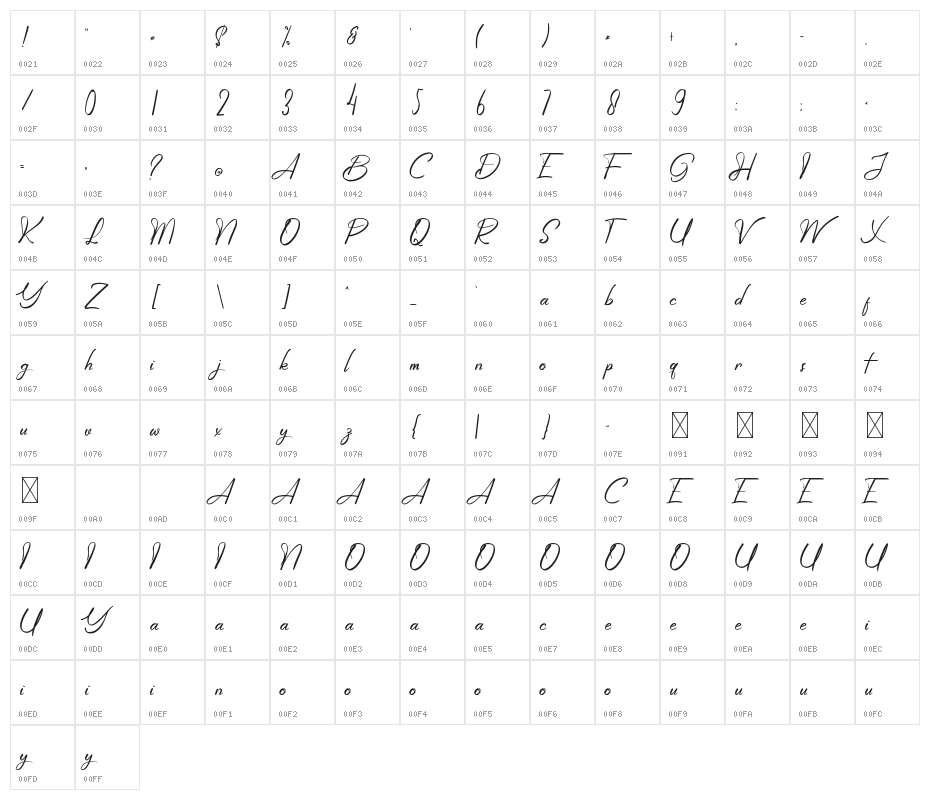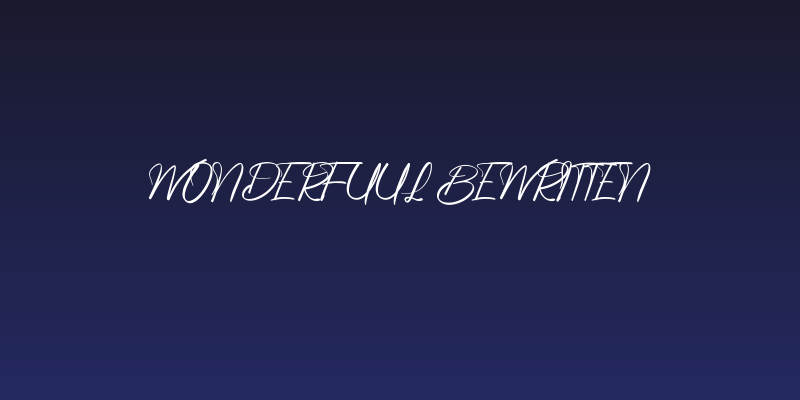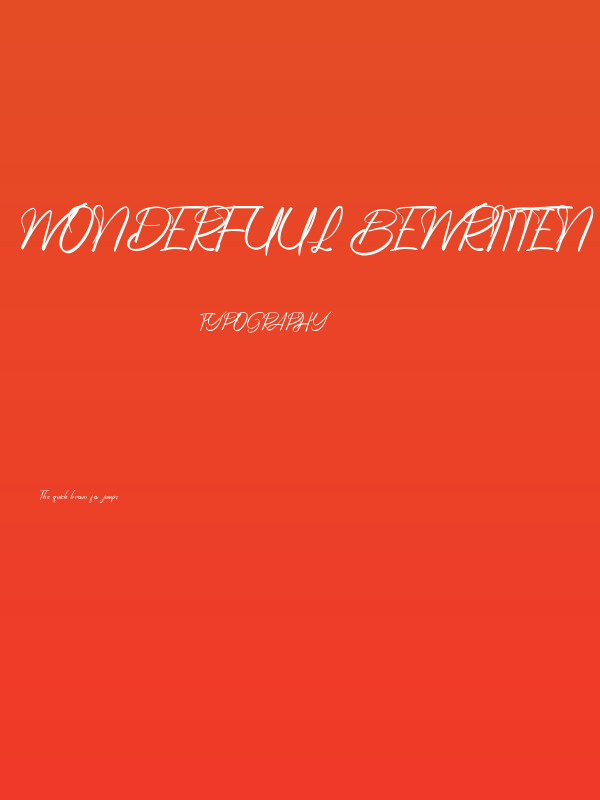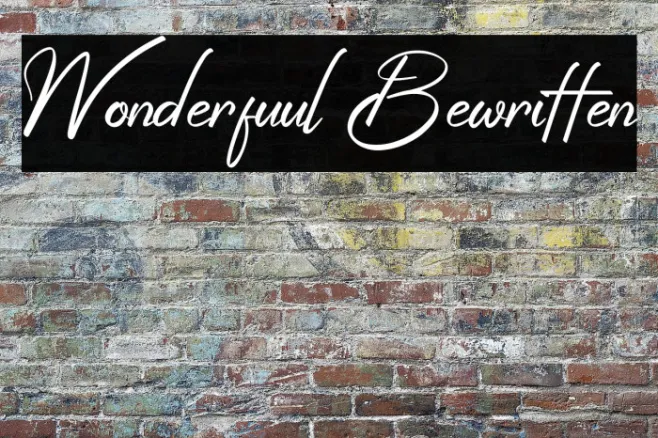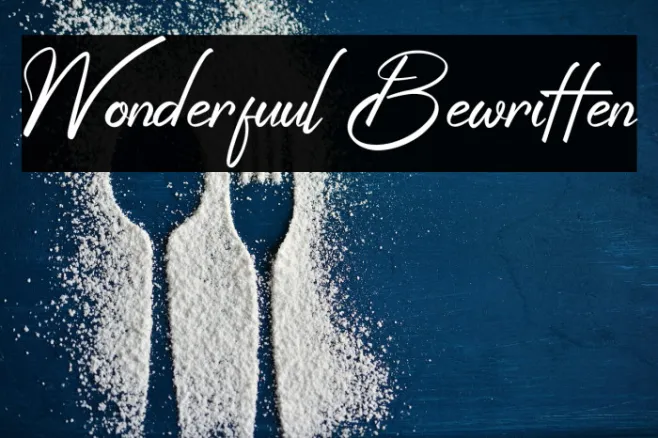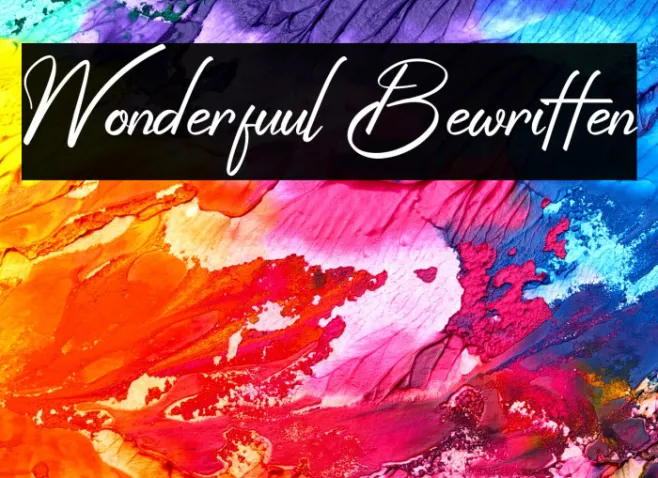
Wonderfuul Bewritten Font
Wonderfuul Bewritten Description
This font exudes a handwritten elegance with its flowing, cursive style. The uppercase letters are bold and sweeping, with dramatic loops and flourishes that give them a sense of movement and grace. The lowercase letters maintain this fluidity, offering a more subtle and refined appearance. The numerals are distinct and slightly elongated, maintaining the overall cursive theme. Special characters are integrated seamlessly, enhancing the font's versatility. This font's artistic flair makes it ideal for projects that require a personal, creative touch.